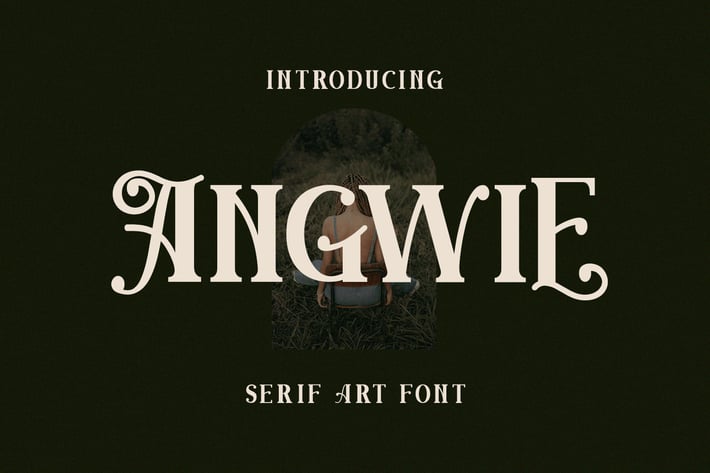
Angwie Serif Art Font
Angwie is a handmade Modern Victorian handlettering, which is combining modern and classic typography with some awesome alternates. Yes we back to early 1800s, bring classic touch on this decade.
Ligature: QS, HA, SU, HE, Rx